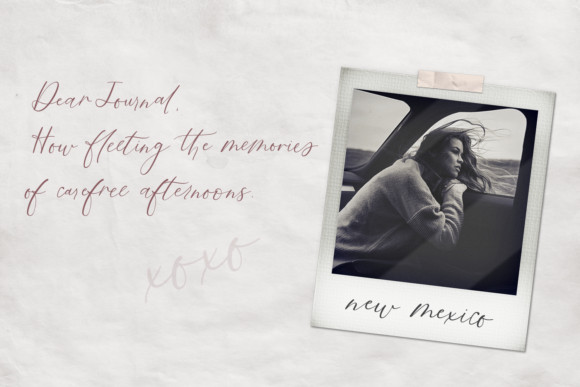
Fall Ember Font
Please note that Fall Ember Font must be purchased for commercial use. You are welcome to download and test this font for personal and non-commercial projects at no cost. This exquisite, flowy calligraphy script is perfect for a highly personalized and refined range of design applications, including sophisticated wedding stationery, luxurious logos and branding projects, beautiful magazine layouts, stylish header elements for websites with a feminine touch, and engaging quote graphics for social media that seek a handcrafted, yet effortless, look.
The reason Fall Ember Font is genuinely exciting is its sophisticated balance between approachable informality and elegant refinement. Inspired by a sense of wanderlust, its smooth, leaning flow gives text a natural, handwritten liveliness. Crucially, it includes an extensive collection of over 40 lowercase alternate characters and 47 discretionary ligatures, allowing designers to customize their text to an unprecedented degree. This feature ensures every design feels unique, bespoke, and beautifully crafted, giving it that sought-after human element.
The Fall Ember Font family typically consists of a primary signature weight (Regular Calligraphy Script), as the visual variation is achieved through its wealth of OpenType features rather than multiple stroke weights. The family’s strength lies in its extensive character set that supports Western European languages and its numerous alternates. For a script font that is both sophisticated and welcoming, secure your Fall Ember Font Free Download and infuse your projects with a refined, artistic flow.